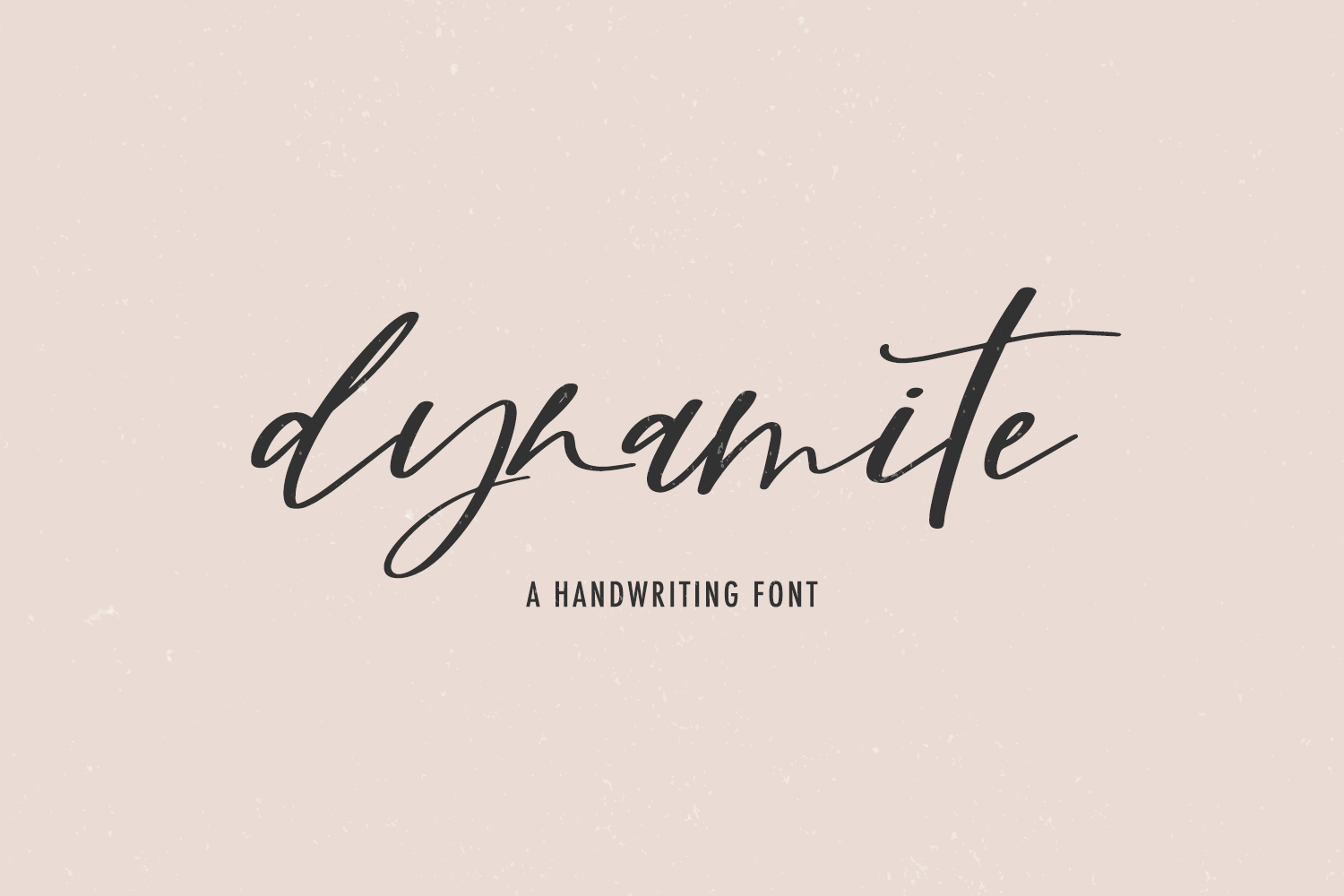
Introducing Dynamite, a casual, modern calligraphy script.
Dynamite is best for:
- modern, chic farmhouse decor and crafts
- website design + website accents, blog design
- feminine graphic tee shirt design & other apparel
Dynamite includes:
- 35 alternate lowercase characters
- 18 ligatures - ar, bb, dd, ee, ff, gg, ir, ll, mm, nn, oo, or, pp, rr, ss, th, tt, ur